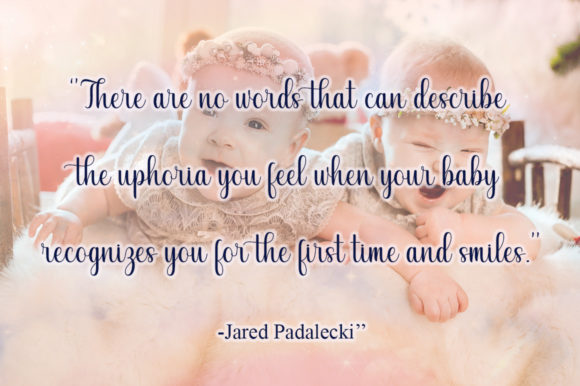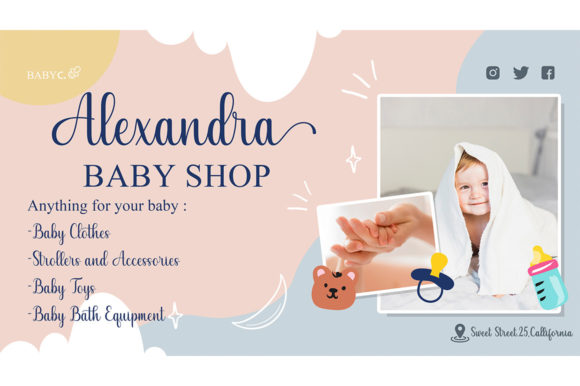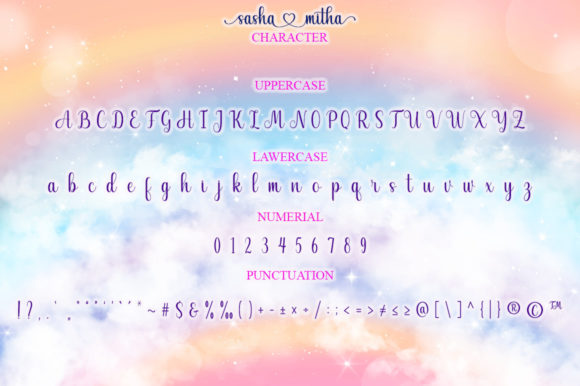
Introduction to Sashamitha Font
Have you ever found yourself lost in the world of design, scrolling through endless fonts in search of that perfect match for your creative project? For many designers, this is a familiar experience, but what if I told you that I’ve recently stumbled upon a hidden gem that’s sure to elevate your designs to the next level? Meet the Sashamitha Font, a stunning calligraphy typeface that adds a touch of luxury and sophistication to any project.
What sets Sashamitha apart is its unique, dancing characters that seem to come alive along the baseline. It’s the perfect addition to any design resource, and with its PUA encoding, you’ll have access to a wide range of glyphs and ligatures to experiment with. Whether you’re working on a high-quality print project or creating a beautiful digital design, the Sashamitha Font is sure to bring a new level of creativity and flair to your work.
Key Features of Sashamitha Font
- High-quality, professional font suitable for creative projects and design resources.
- Unique characteristics: Elegant, cursive script with a touch of sophistication, making it perfect for wedding invitations, greeting cards, and other creative projects.
Honest Review: Sashamitha Font
I recently came across the Sashamitha Font and was excited to give it a try in my next creative project. The font is a free download, which is always a bonus, and I was impressed with the high quality of the design.
- What works well: ✨ The font is versatile and can be used for a variety of projects, from body text to headings. I also appreciate the transparent background, which makes it easy to customize.
- What works well: ✨ The font is highly legible, even at small font sizes, making it perfect for digital applications.
However, I did encounter some limitations with the Sashamitha Font. ⚠️ The font is a bit on the heavier side, which may not be suitable for projects where a lighter font is desired.
Overall, I’m impressed with the Sashamitha Font and would definitely recommend it as a design resource for any creative project. The free download option and high-quality design make it a valuable addition to any designer’s toolkit.
I look forward to using the Sashamitha Font in future projects and would be interested to see if the designer continues to update and improve the font.
Using Sashamitha Font in Creative Projects
The Sashamitha Font is ideal for creative projects that require a high-quality, elegant font. It features a transparent background, making it perfect for use on images or videos. You can download the font for free, making it a valuable design resource for any project.
Tips for Getting the Most Out of Sashamitha Font
To get the most out of the Sashamitha Font, experiment with different font sizes, colors, and combinations with other fonts. You can also use the font to create a cohesive brand identity for your business or project.
The Sashamitha Font is commonly used in wedding invitations, branding materials, and social media graphics. Its elegant and sophisticated design makes it perfect for creating high-quality, professional-looking materials.